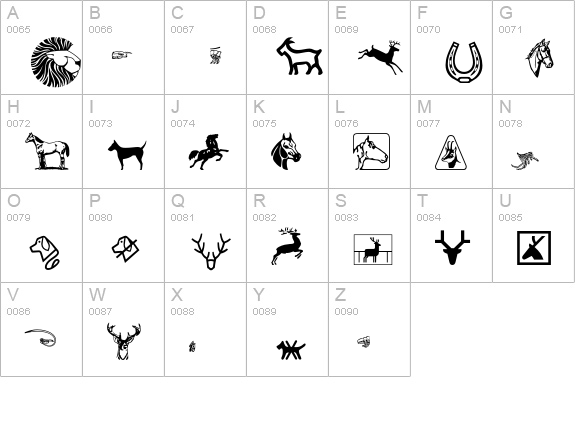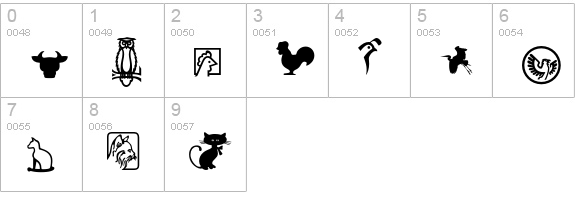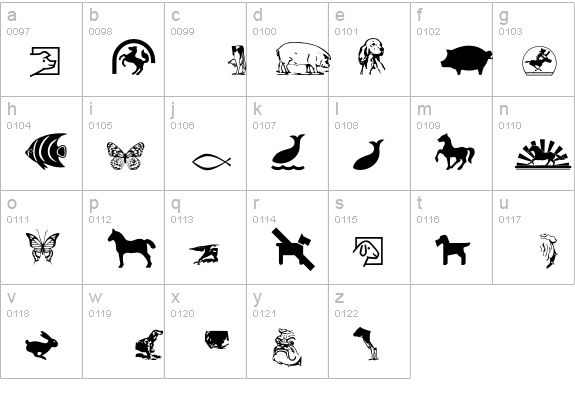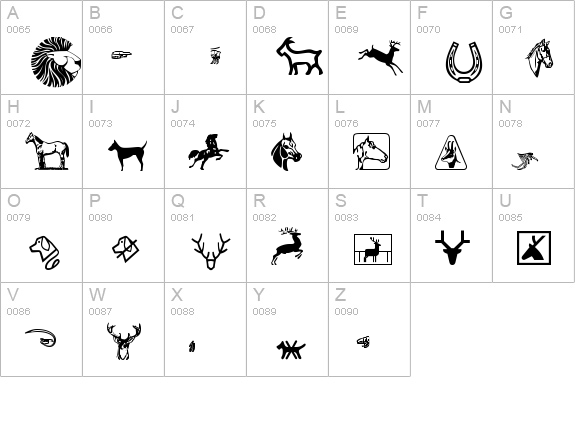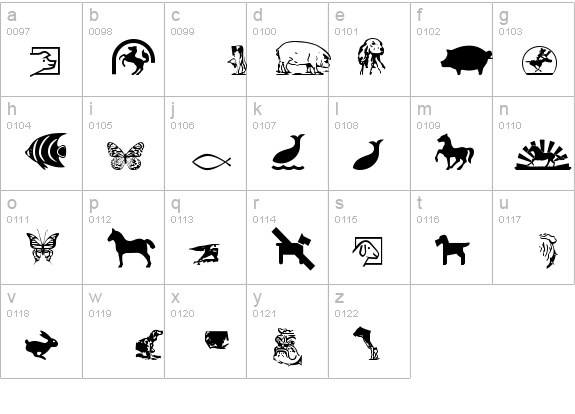
AnimalsP01 Font Details
Introducing AnimalsP01 font, a charming and whimsical typeface that brings a playful touch to any design project. This delightful font features unique animal-inspired characters that add a fun and lighthearted feel to your text. AnimalsP01 is perfect for creating eye-catching titles, invitations, posters, and more. What sets AnimalsP01 font apart is its versatility and creativity, making it a great choice for projects that require a touch of personality. Whether you're designing for a children's book, a nature-themed event, or just want to add a touch of whimsy to your designs, AnimalsP01 has you covered. Best of all, AnimalsP01 font is completely free to download at FontsMarket.com. So go ahead and add a touch of playfulness to your projects with this charming and unique font.